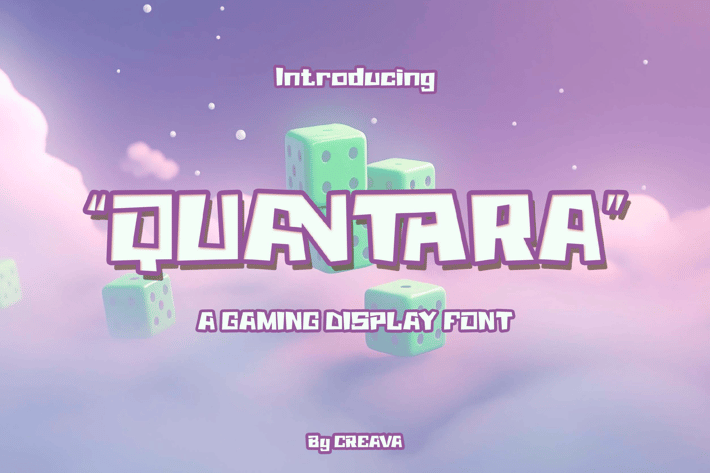
Quantara Display Font
Quantara is a gaming display font designed to bring energy and excitement to your projects. With its bold and dynamic letterforms, this typeface is perfect for gaming logos, esports branding, streaming graphics, posters, and futuristic UI designs. Quantara adds a powerful and modern touch to any gaming-related creation.